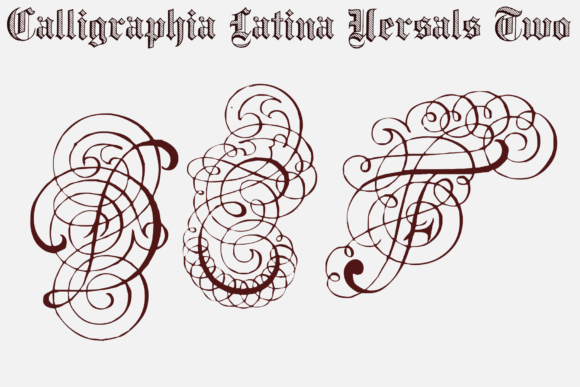
Embracing the Beauty in Imperfection: A Deep Dive into Calligraphia Versals Two
As a designer, I’ve often found myself in a creative rut, searching for the perfect font that embodies the essence of a project I’m trying to bring to life. It was during one of these moments of frustration, staring blankly at my computer screens, when I stumbled upon Calligraphia Versals Two. This ornamental font immediately caught my attention with its elegant curves and effortlessly chic aesthetic. The more I explored Calligraphia Versals Two, Two, the more I realized that I had discovered something special. Calligraphia Versals Two wasn’t just another font; it represented a statement on of the”thezeit on design, on imperfect calligraphy, and on embracing disarray.
A Personal Encounter with Calligraphia Versals Two
The first thing that drew me to
Calligraphia
Versals Two was undoubtedly its unique, perfectly imperfect aesthetic. The letters seemed to dance across the screen with a grace and a subtle disorder that was both captivating.
This font seamlessly thatVersals Two can be used in a variety elegant projects,Versatile expression. projects,
Classical CalligraphiaPenmanshipThe ink effect gives
Classical Penmanship effect gives a ink and subtle, effect to TheThe ## A * ✨ **Some quirks to mind with Calligraphia